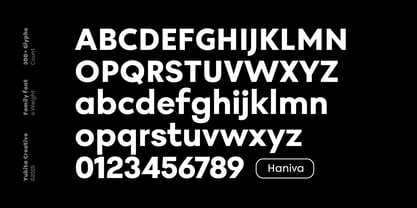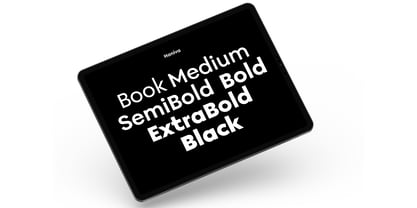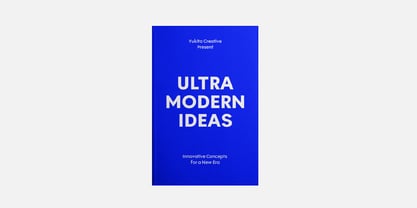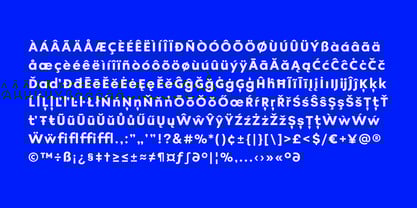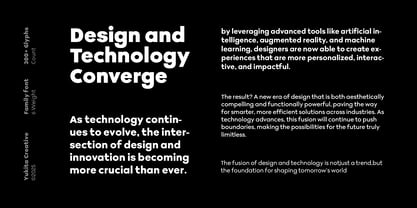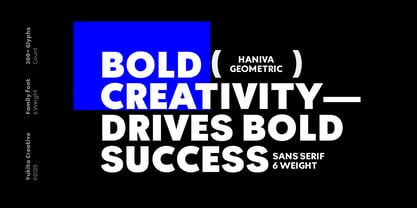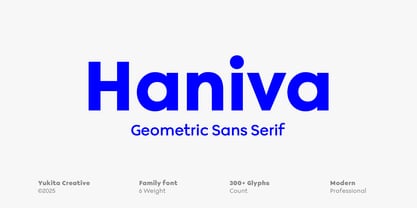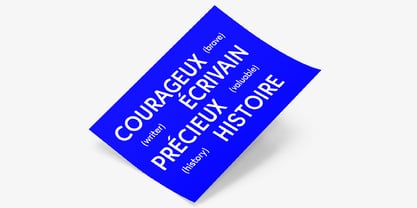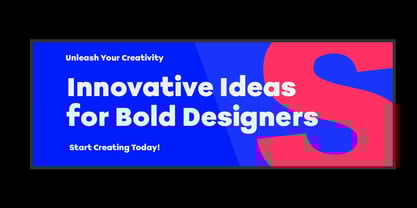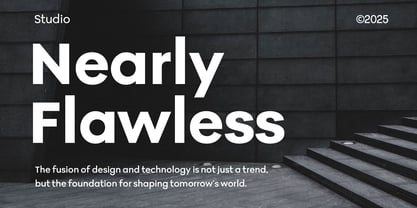
Haniva
by Yukita Creative
The Haniva Font Family was designed by abdul artega and published by Yukita Creative. Haniva contains 6 styles and family package options.
Haniva is a modern geometric sans-serif typeface designed for versatility and precision. With 6 weights—Regular, Medium, SemiBold, Bold, ExtraBold, and Black—it offers a wide range of options for various design needs. Its clean and balanced letterforms make it ideal for branding, headlines, web design, and editorial use.
Haniva combines a contemporary aesthetic with excellent readability, making it perfect for professional and creative projects that demand a sleek, modern, and timeless look.
Designers: abdul artega
Publisher: Yukita Creative
Foundry: Yukita Creative
Design Owner: Yukita Creative